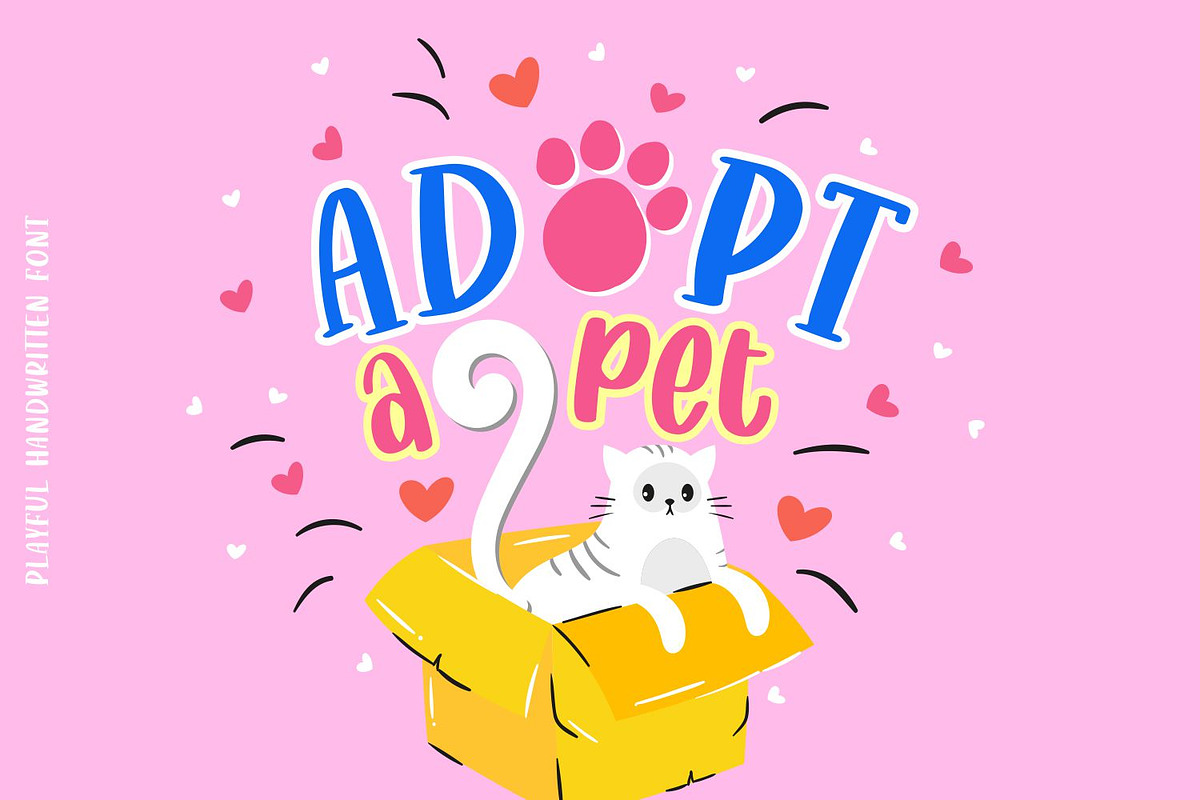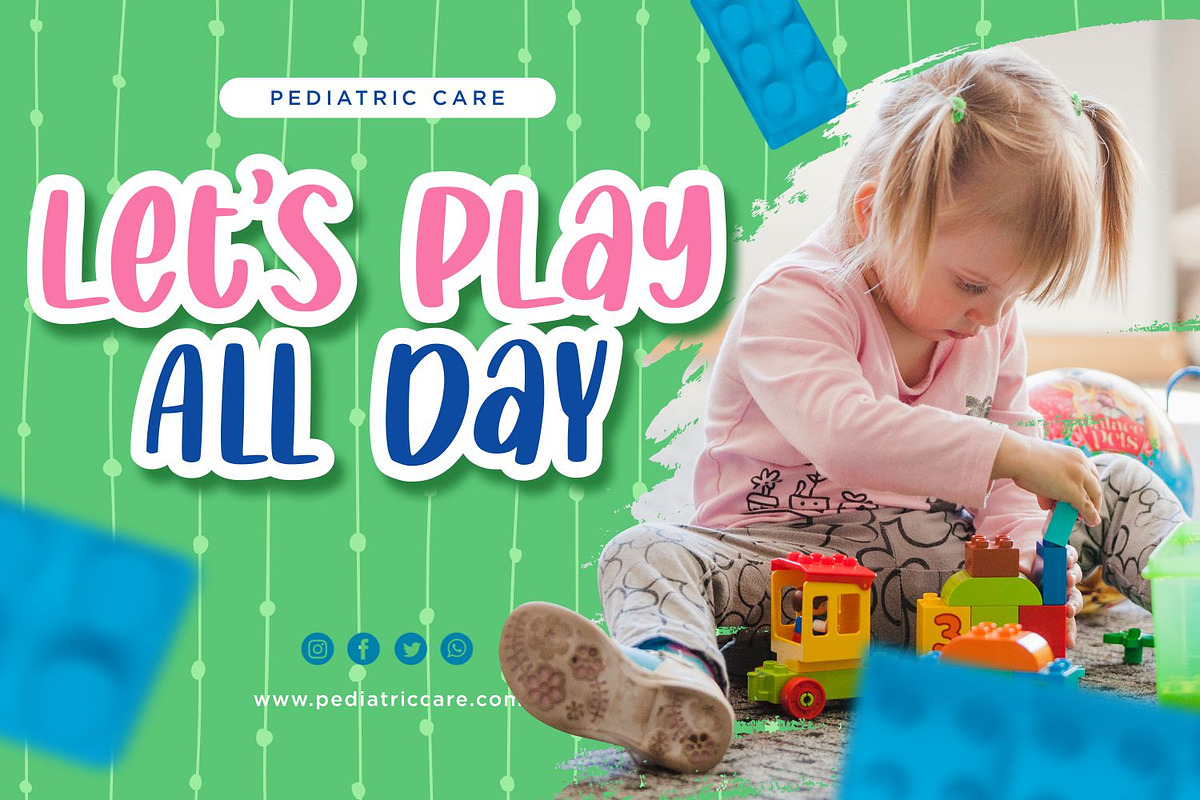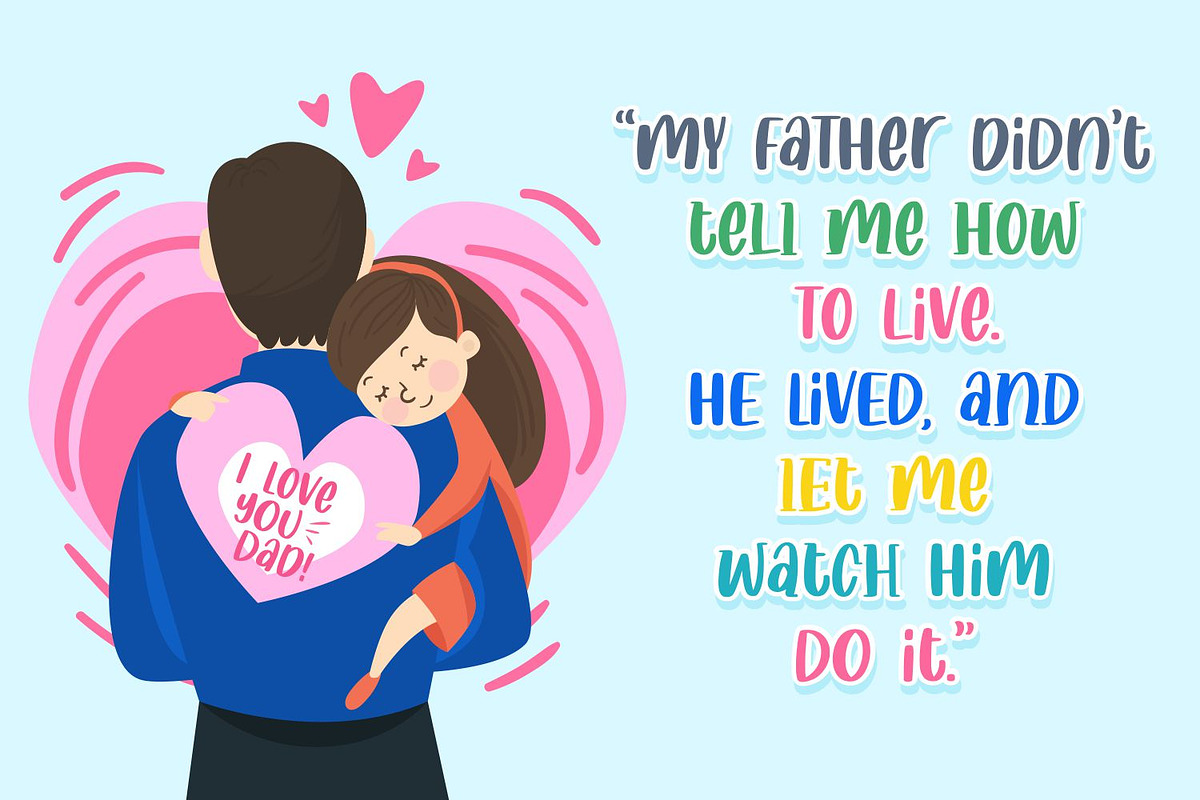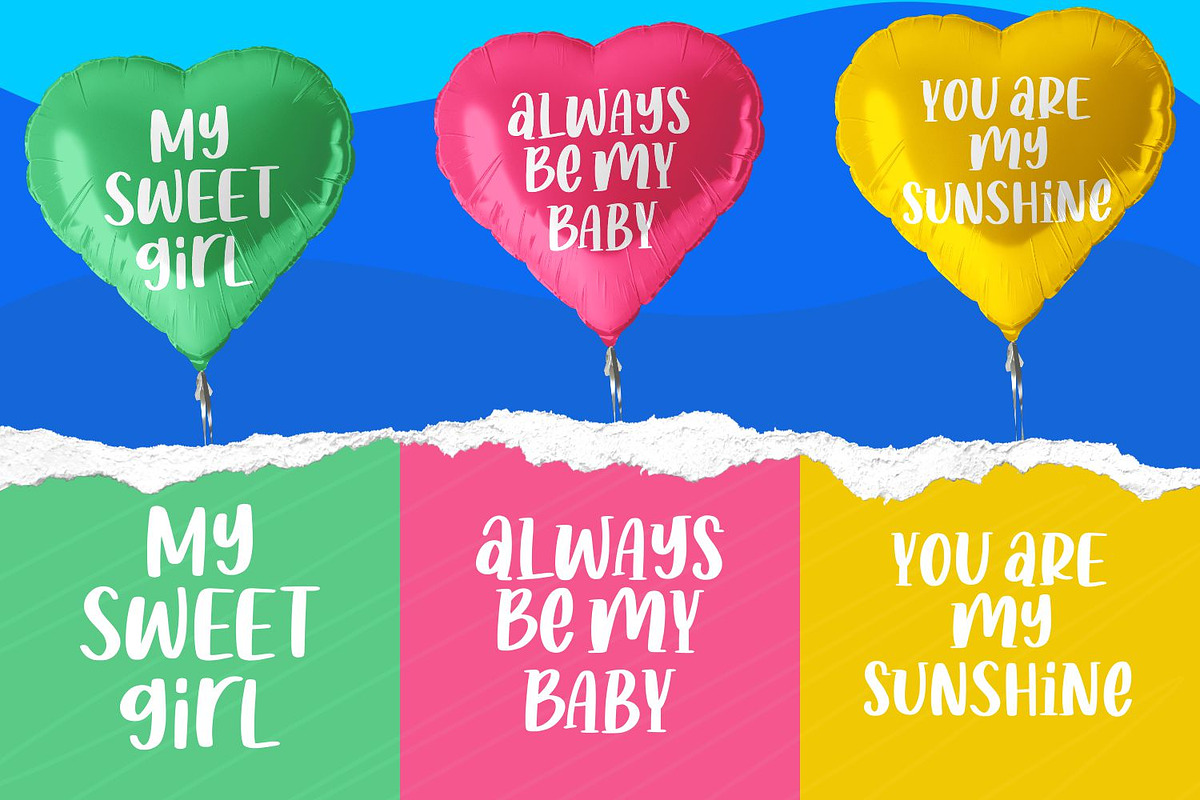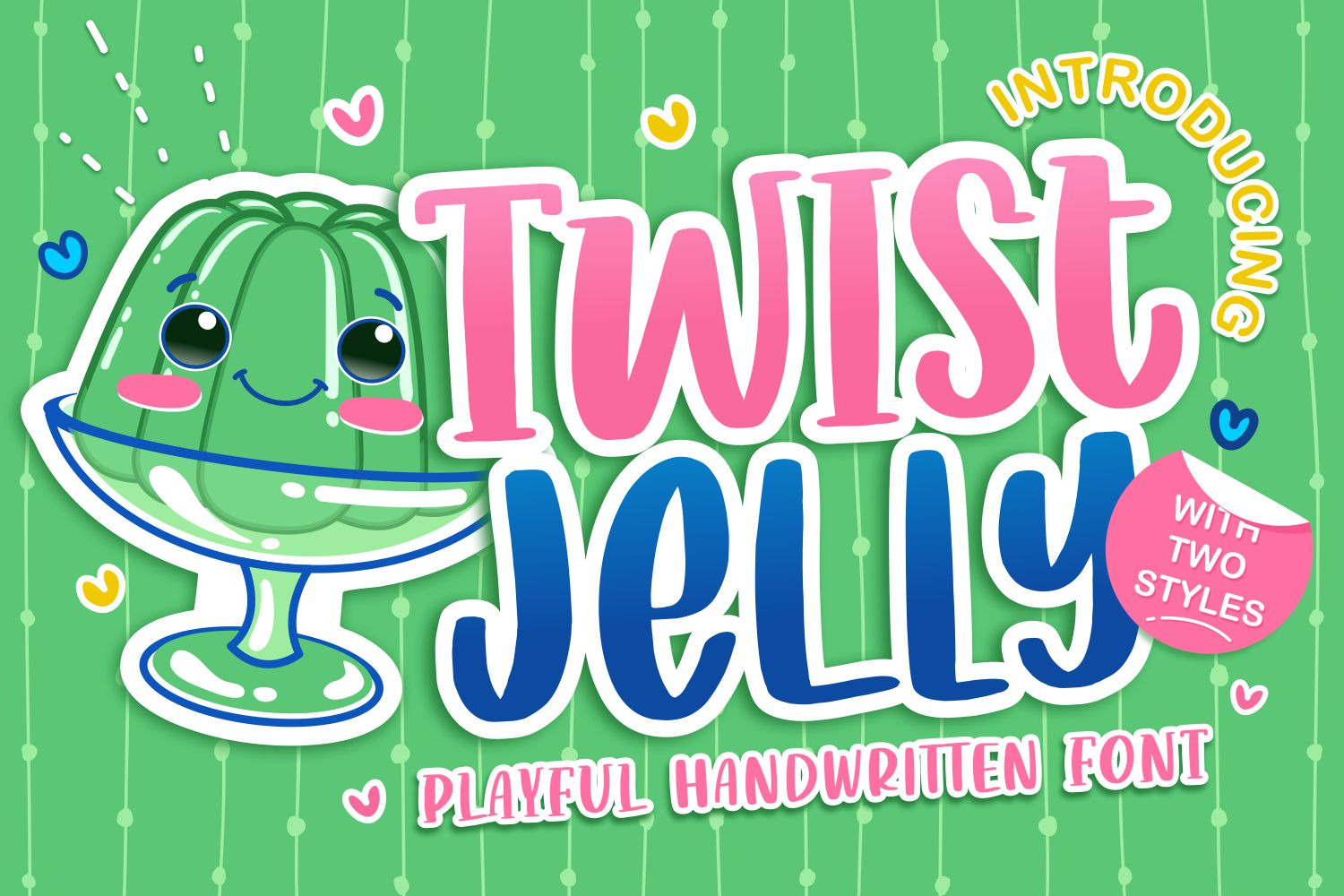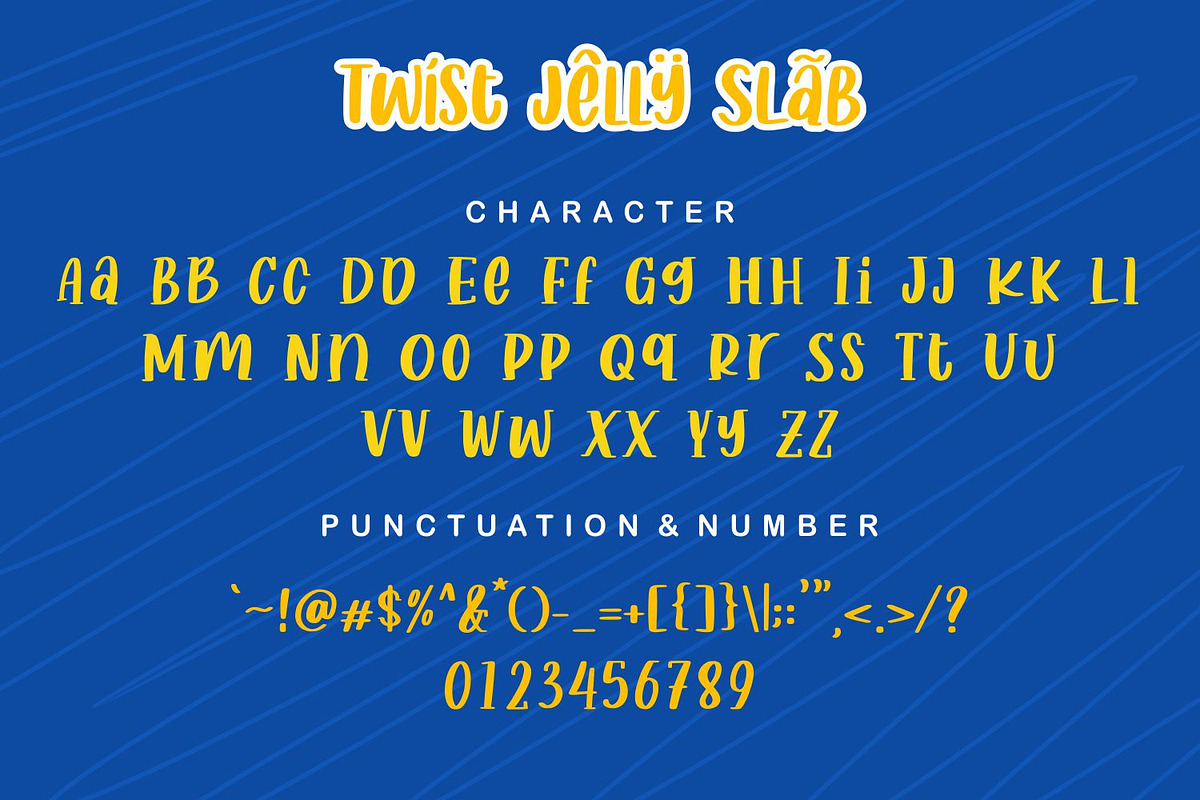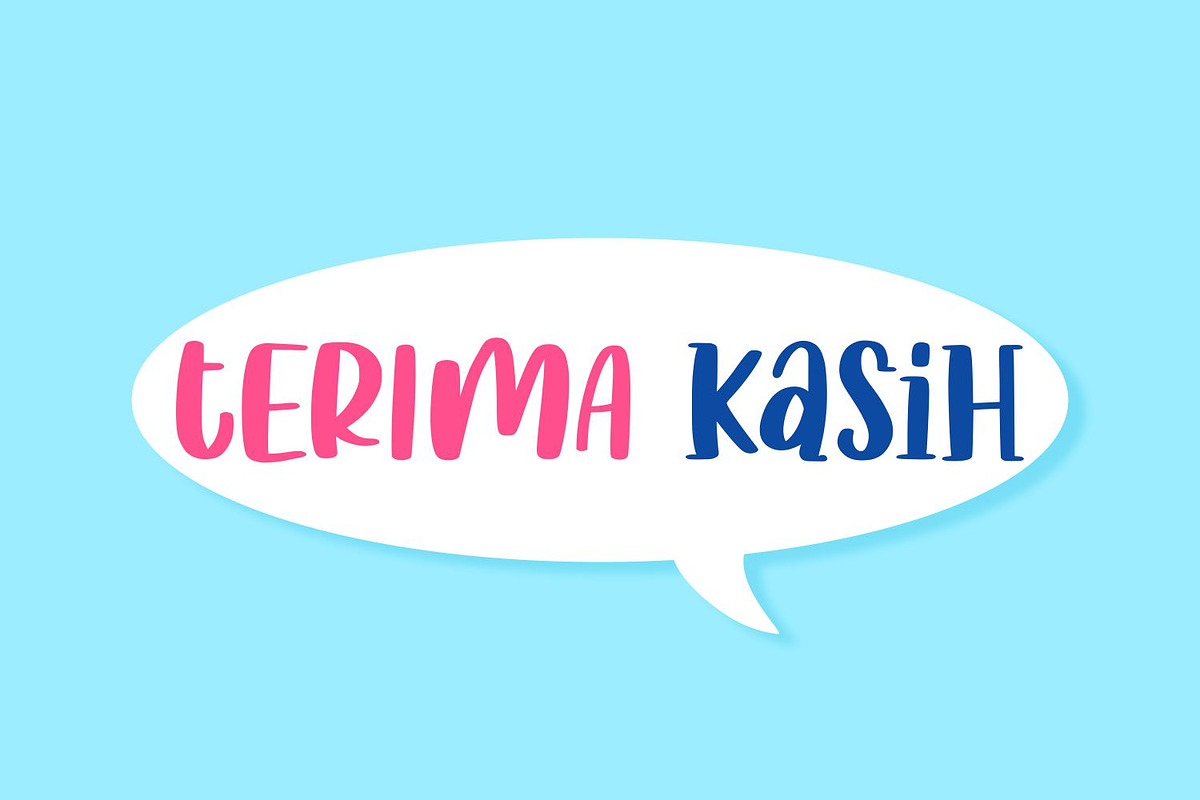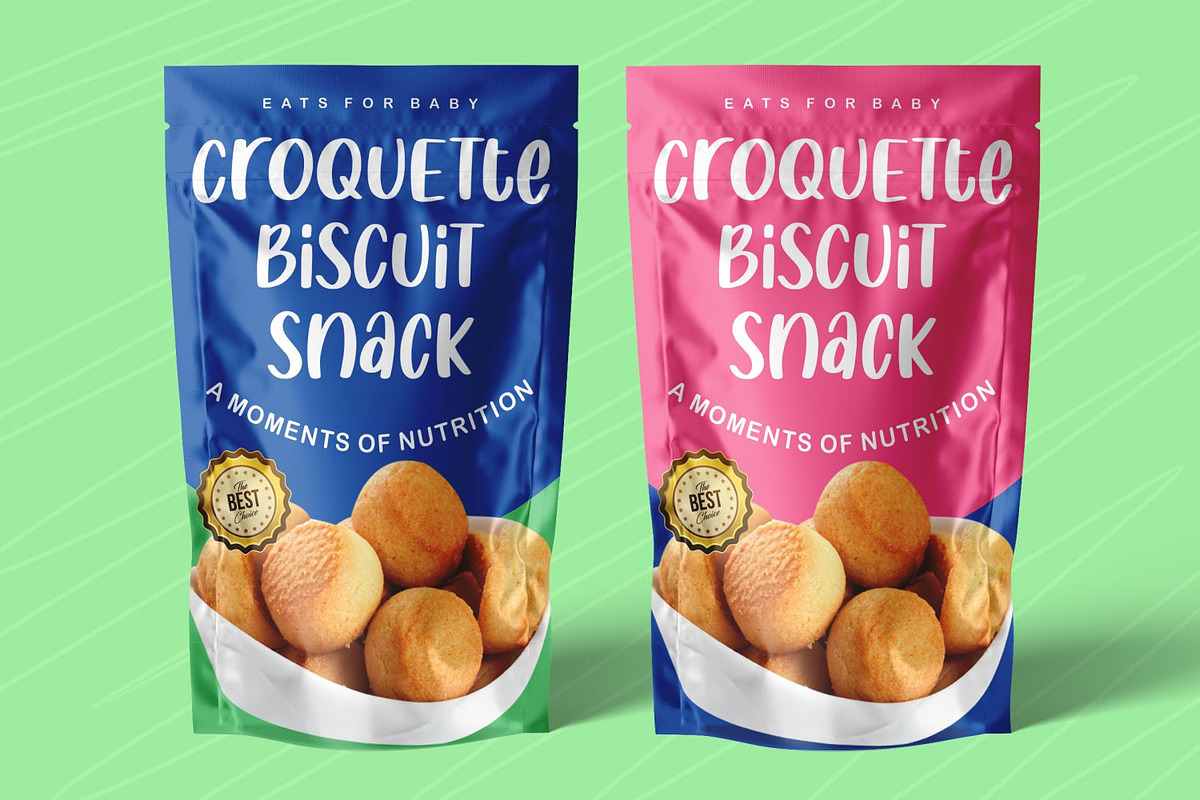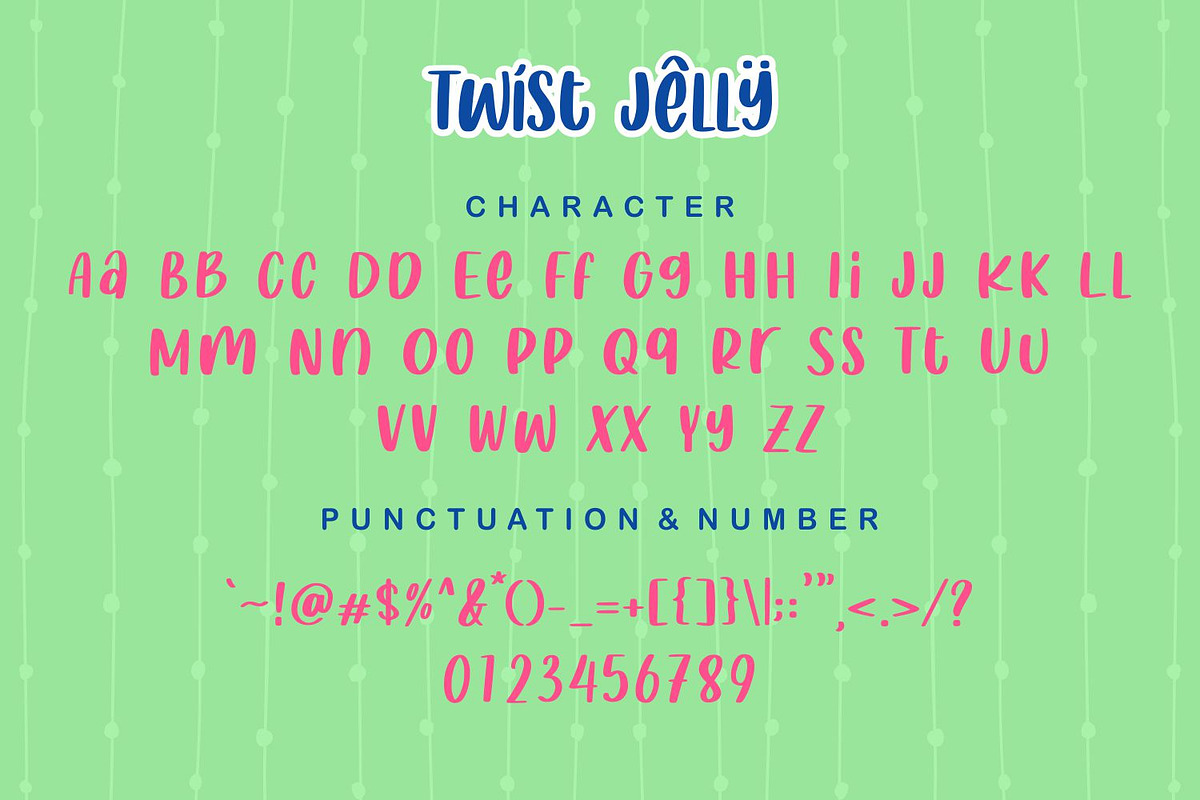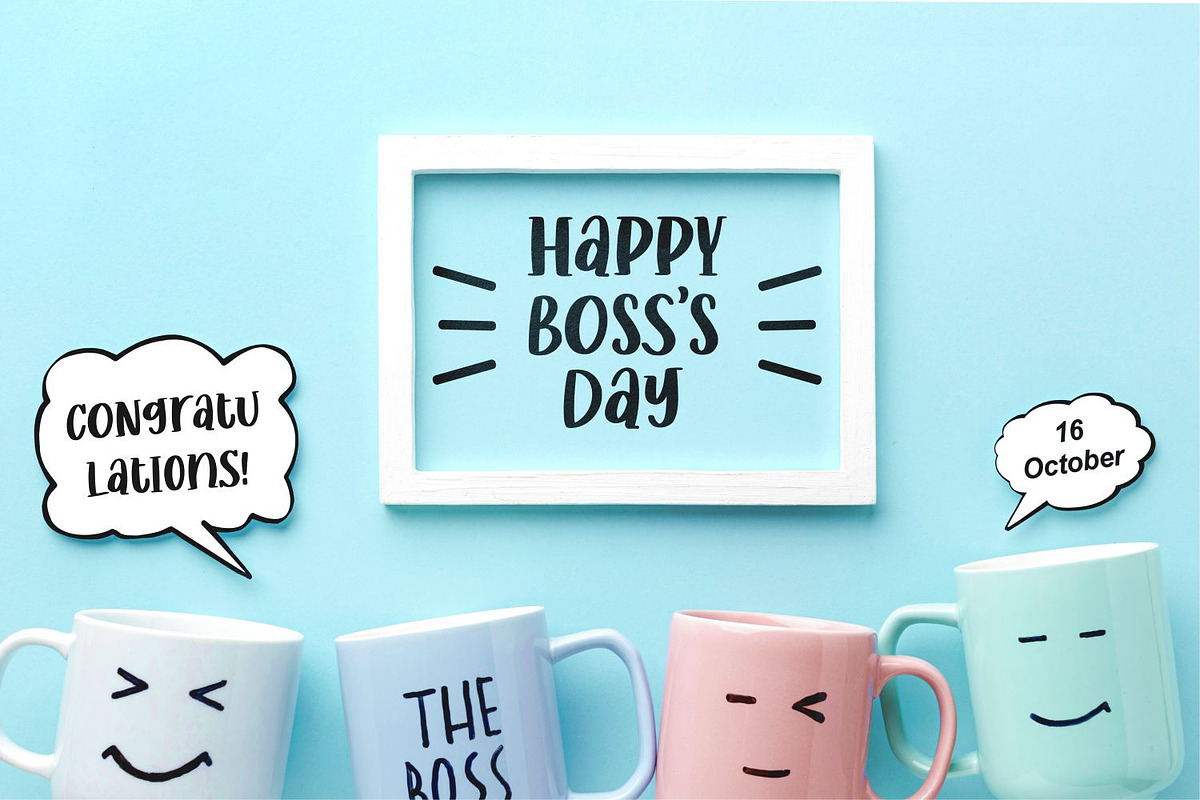
Twist Jelly Font
Proudly Present, Twist Jelly.
Twist Jelly is a Playful Handwritten Font.
Twist Jelly is perfect for product packaging, branding project, megazine, social media, wedding, or just used to express words above the background.